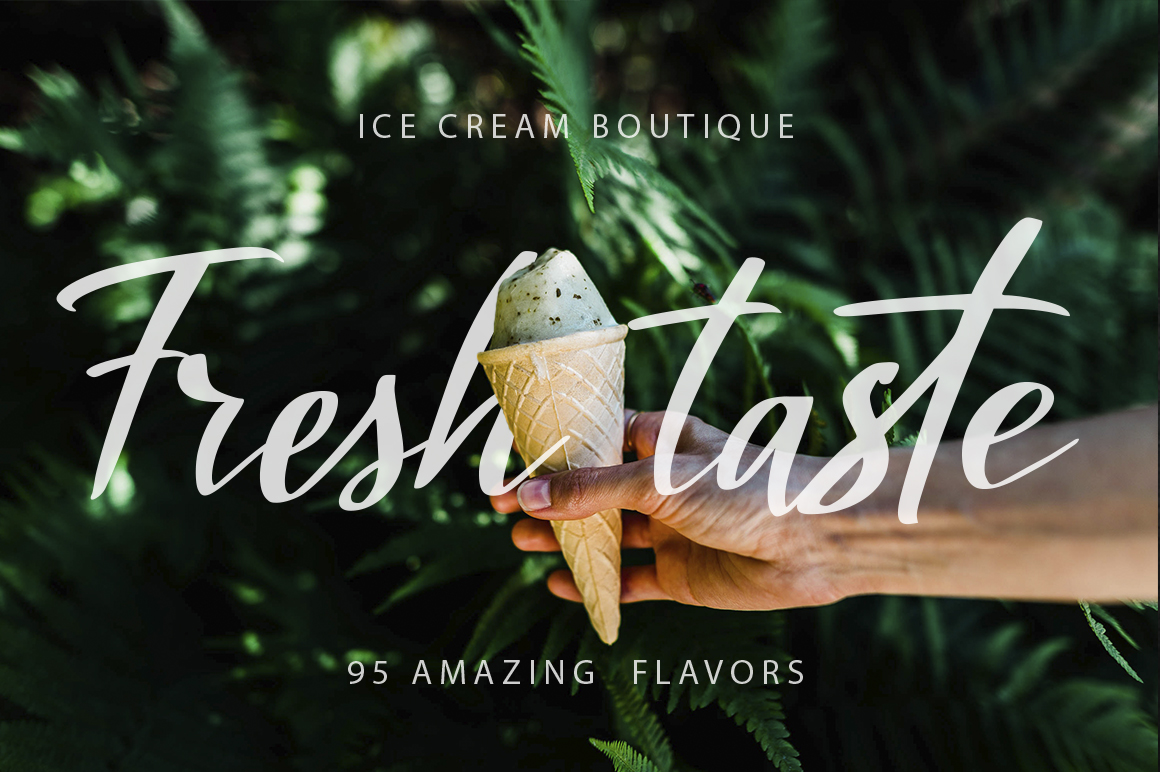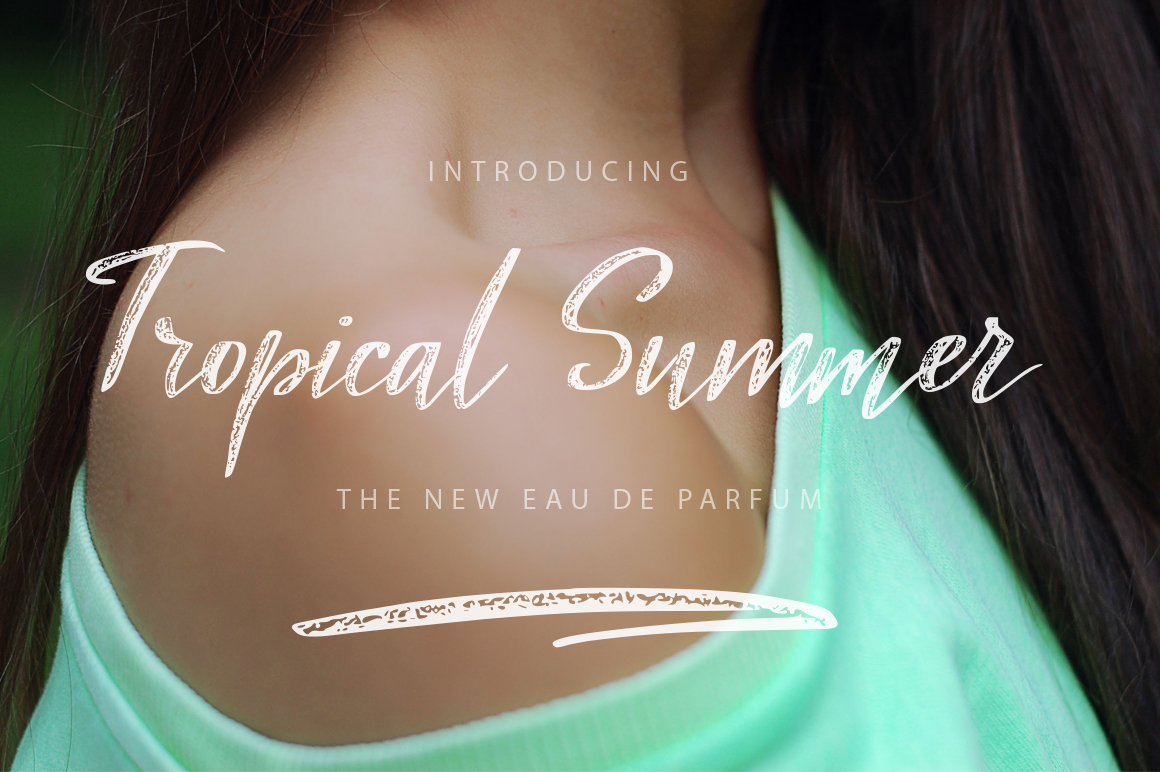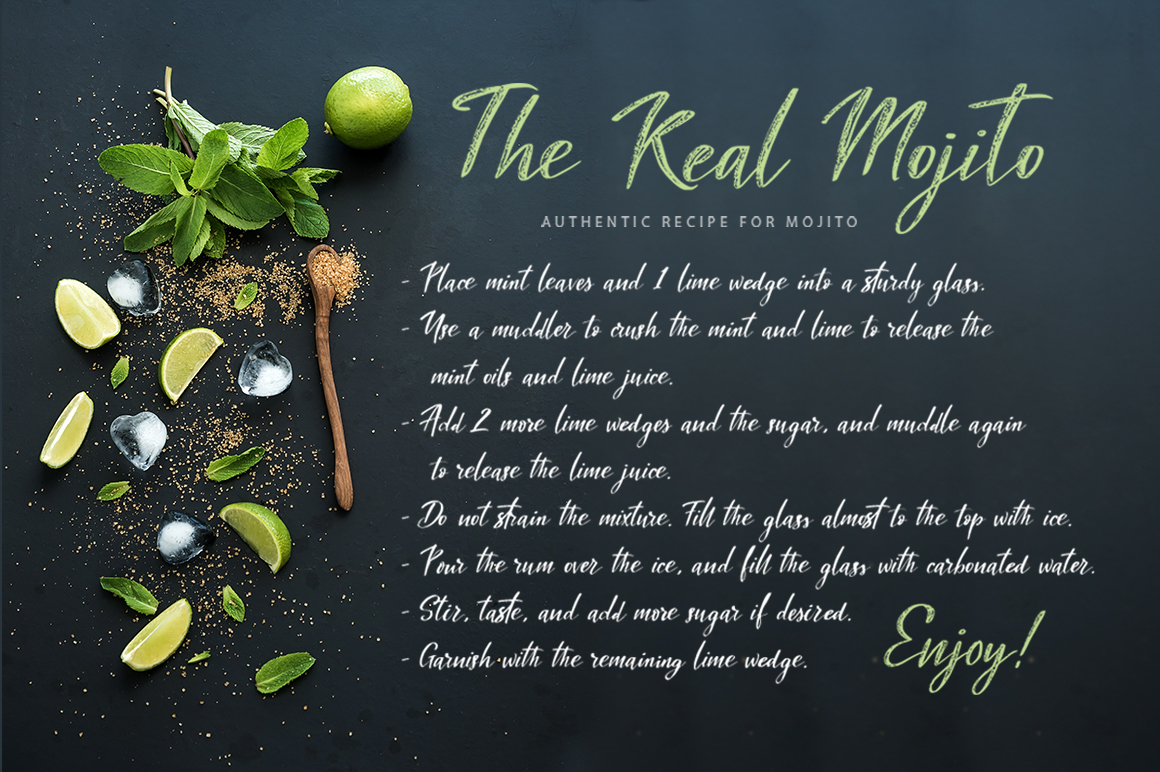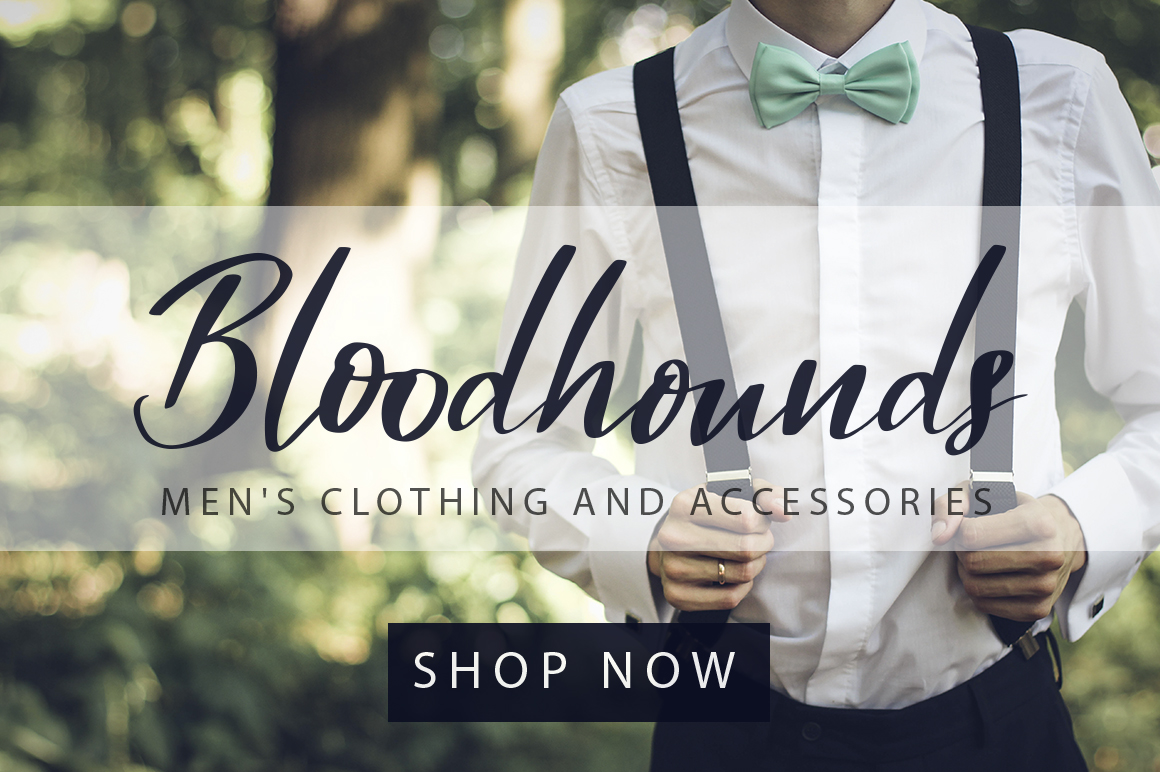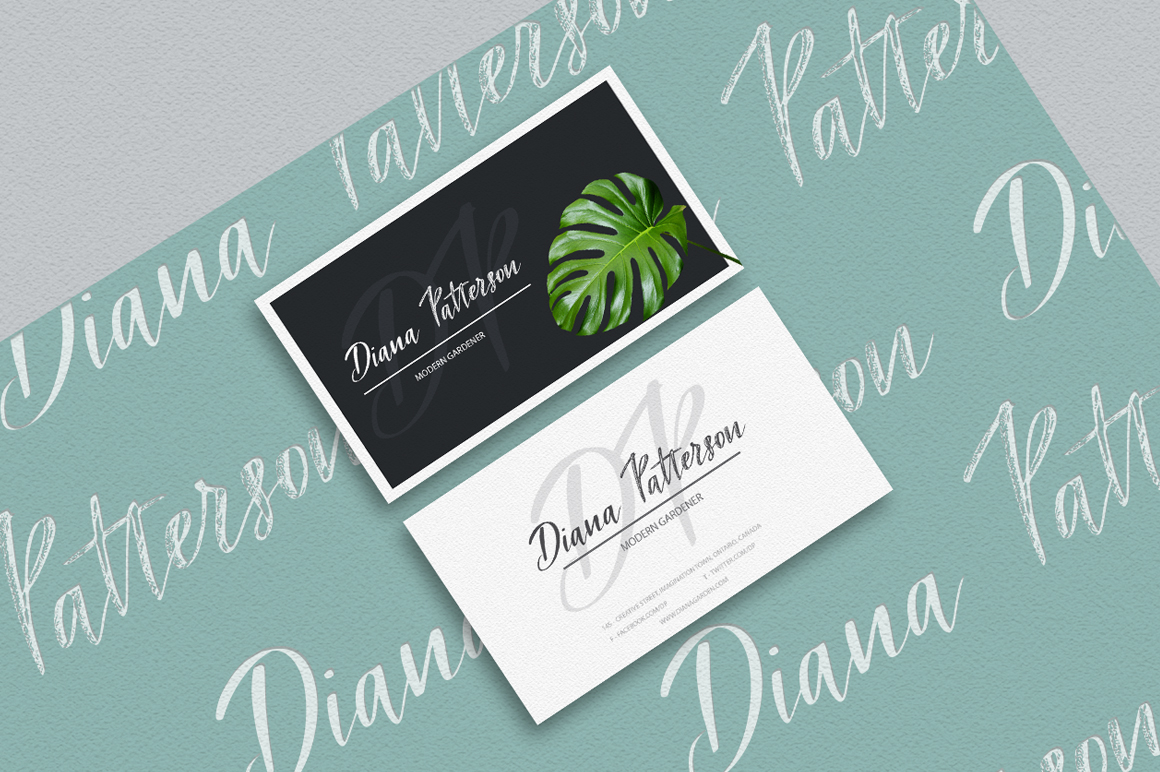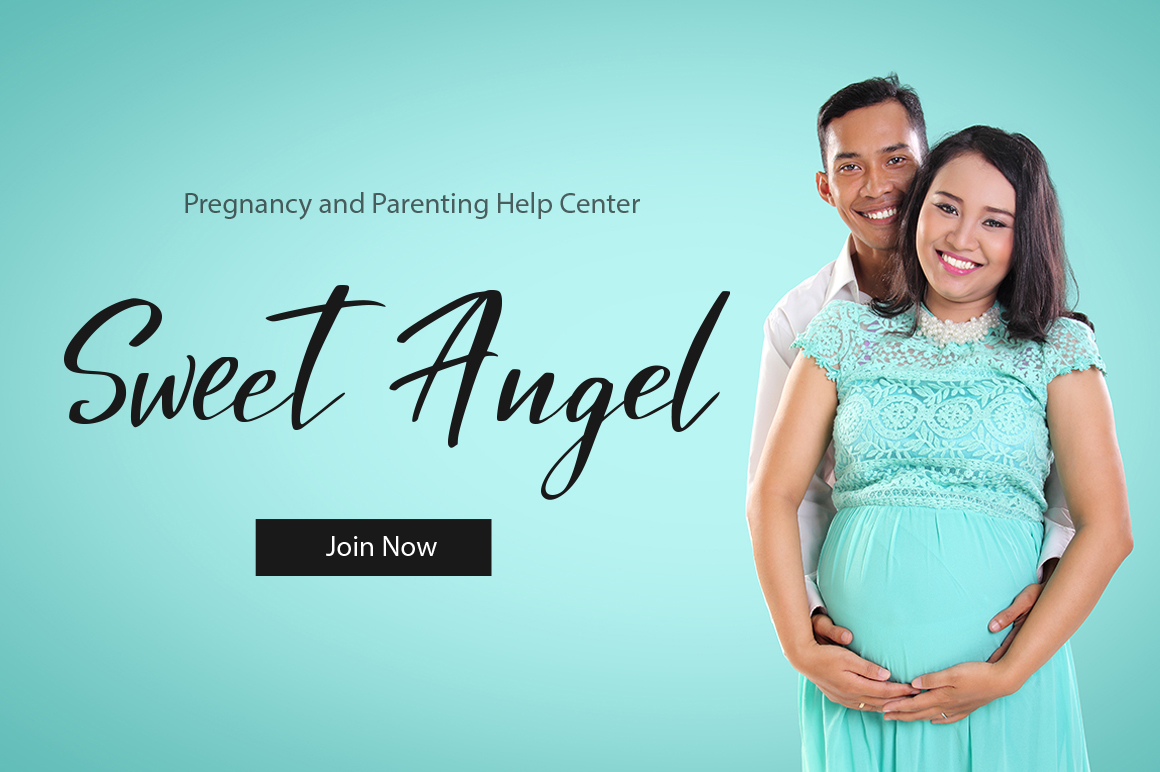
The Ultimate Typographic Companion: Unleashing the Power of Alter Ego Duo Font
Have you ever been in the middle of a design project, pouring your heart and soul into every detail, only to hit a roadblock when it comes to finding the perfect font? I certainly have. It was during one of those moments, working on a branding project for a trendy boutique, that I stumbled upon the Alter Ego Duo Font. This game-changing font duo has been a staple in my design toolkit ever since, and I’m excited to share my experience with you.
A Personal Love Affair with Alter Ego
The Alter Ego Duo Font consists of two amazing fonts: a clean version and a textured version. What drew me in immediately was the casual styling and the vast array of alternatives it offers. This font is all about giving your typographic needs a personal, light, and custom-made feel – and it delivers on that promise. Whether you’re working on a logo, a social media graphic, or a full-blown branding project, Alter Ego has got you covered.
- ✨ Versatility: The duo comes with two distinct versions, allowing for a wide range of applications and design possibilities.
- ✅ Ease of Use: Despite the complexity and the number of alternatives, the fonts are surprisingly easy to navigate and use, even for those who are new to typography.
- 💫 Aesthetic Appeal: The clean version is perfect for modern, minimalist designs, while the textured version adds a charming, rustic touch to any project.
While Alter Ego Duo Font is incredibly versatile and user-friendly, there are a couple of things to keep in mind:
- ⚠️ Learning Curve for Advanced Features: If you’re new to using OpenType features or glyphs, it might take some time to get familiar with how to access and utilize all the stylistic alternates and glyphs.
- 🤔 Textured Version’s Limited Use Cases: While the textured version is beautiful, it might not be suitable for very formal projects or those requiring a highly polished look.
The Designer Inspiration Behind Alter Ego
The Alter Ego Duo Font was designed with the modern creative in mind. The designer aimed to create a font that could effortlessly bridge the gap between digital and print, offering a versatile tool for various design applications. Inspired by the eclectic mix of urban and rustic landscapes, Alter Ego brings a unique blend of modernity and character to the table.
Q: What makes Alter Ego Duo Font unique?
A: Its versatility, thanks to the two versions (clean and textured), and the extensive range of stylistic alternates and glyphs, make it a standout choice for designers looking for a font with character.
Q: Is Alter Ego suitable for body text?
A: While Alter Ego can be used for body text, especially in the clean version, its true strength lies in headlines and titles where its stylistic alternates and glyphs can be showcased.